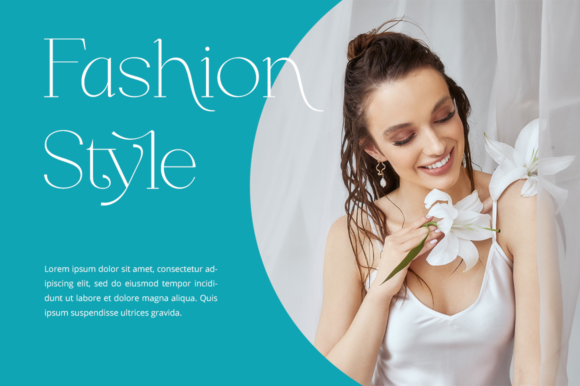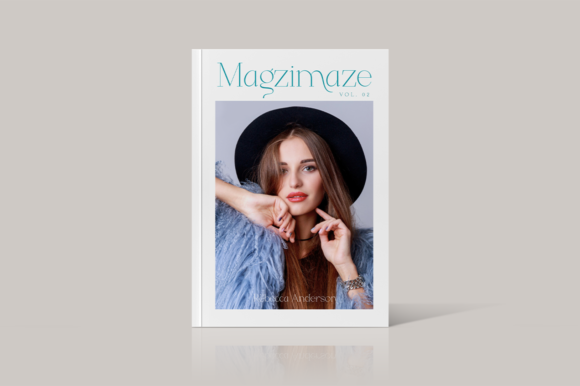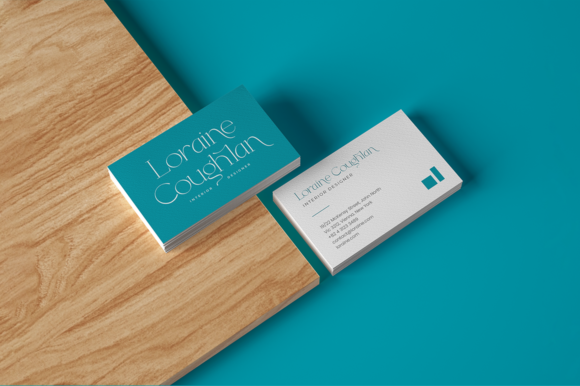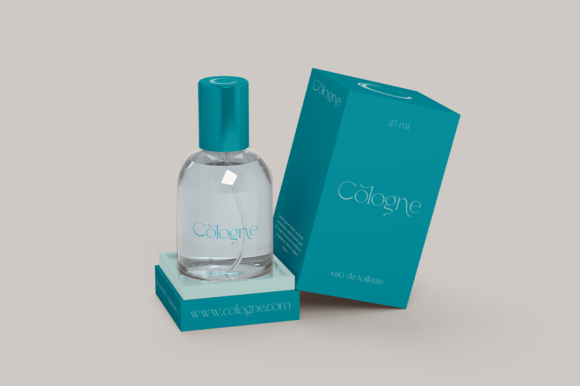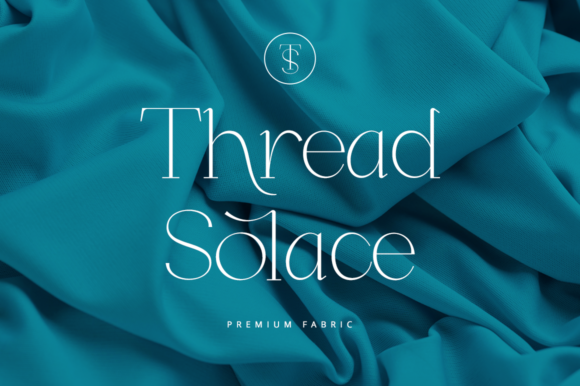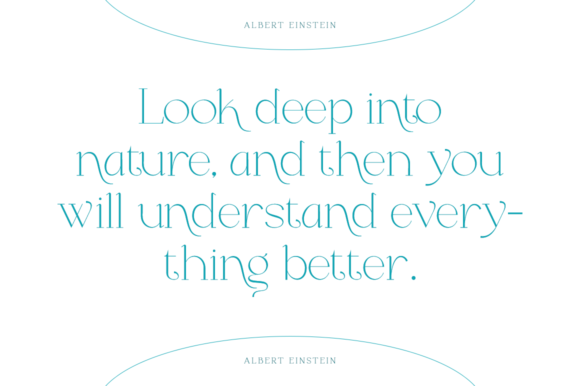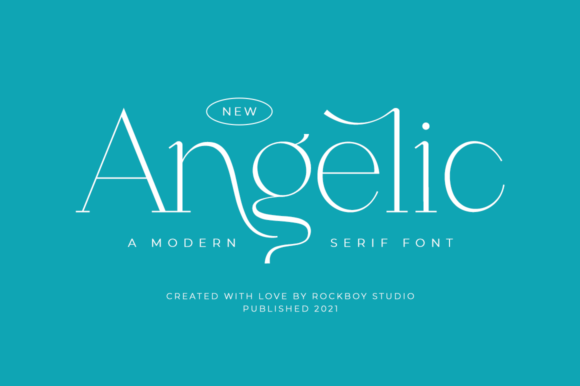
Introducing Angelic Font: Elevate Your Designs with Elegance and Authenticity
Are you a designer or crafter looking for a font that can add a touch of sophistication and elegance to your creations? Look no further than Angelic Font, a beautiful and authentic serif font that is sure to become a valuable asset in your library.
The Beauty of Angelic Font
Angelic Font is a thin, serif font that exudes elegance and refinement. Its delicate lines and classic letterforms make it perfect for a wide range of design projects, from luxury branding and advertising to crafting and DIY projects. Whether you’re creating a high-end magazine, a beautiful wedding invitation, or a stunning craft project, Angelic Font is sure to impress.
What Makes Angelic Font So Special?
So, what sets Angelic Font apart from other fonts on the market? Here are just a few reasons why this font is a must-have for designers and crafters:
- Elegant and Authentic: Angelic Font is a true serif font, with classic letterforms that evoke a sense of tradition and sophistication.
- Thin and Refined: The font’s thin lines make it perfect for designs where you want to convey a sense of elegance and refinement.
- Versatile: Whether you’re working on a luxury brand, a craft project, or a DIY tutorial, Angelic Font is versatile enough to adapt to any style or theme.
- Easy to Read: Despite its thin lines, Angelic Font is surprisingly easy to read, making it perfect for body text as well as headlines.
How to Use Angelic Font in Your Designs
Angelic Font is incredibly easy to use, and can be incorporated into a wide range of design projects. Here are a few ideas to get you started:
- Luxury Branding: Use Angelic Font to create stunning luxury brand identities, including logos, business cards, and letterheads.
- Wedding Invitations: Add a touch of elegance to your wedding invitations, save-the-dates, and other stationery with Angelic Font.
- Crafting and DIY Projects: Use Angelic Font to add a personal touch to your crafting and DIY projects, including tutorials, patterns, and packaging.
- Advertising and Marketing: Use Angelic Font to create eye-catching ads, flyers, and brochures that are sure to grab attention.
Tips for Getting the Most Out of Angelic Font
To get the most out of Angelic Font, here are a few tips to keep in mind:
- Pair with Bold Fonts: Pair Angelic Font with bold, contrasting fonts to create stunning visual interest and hierarchy.
- Experiment with Colors: Try pairing Angelic Font with different colors and textures to add depth and interest to your designs.
- Use for Headlines and Body Text: Use Angelic Font for both headlines and body text to create a cohesive, elegant look.
In conclusion, Angelic Font is a beautiful and authentic serif font that is sure to become a valuable asset in your design library. With its elegant lines, classic letterforms, and versatility, this font is perfect for a wide range of design projects, from luxury branding and advertising to crafting and DIY projects. So why wait? Download Angelic Font today and start elevating your designs with elegance and authenticity.